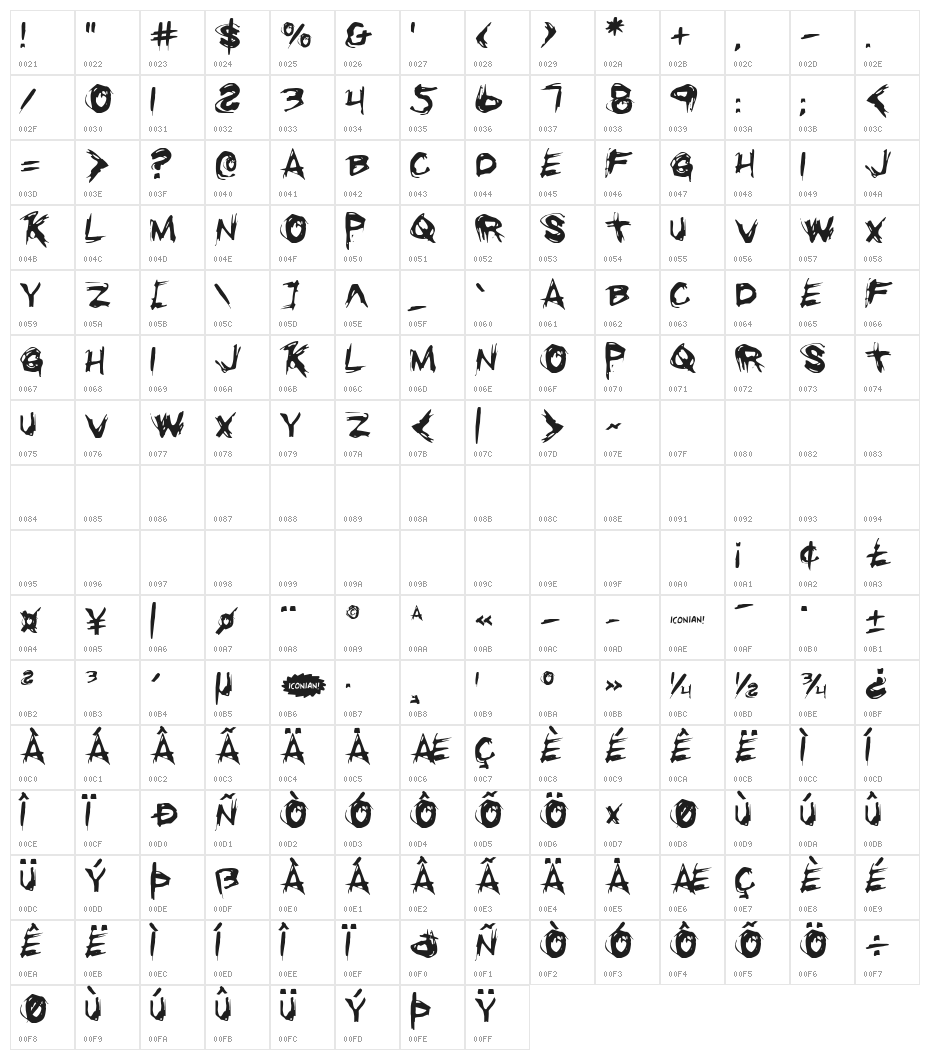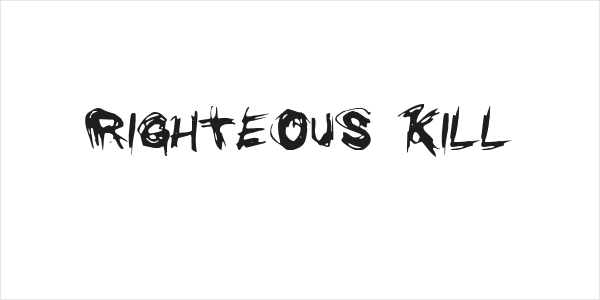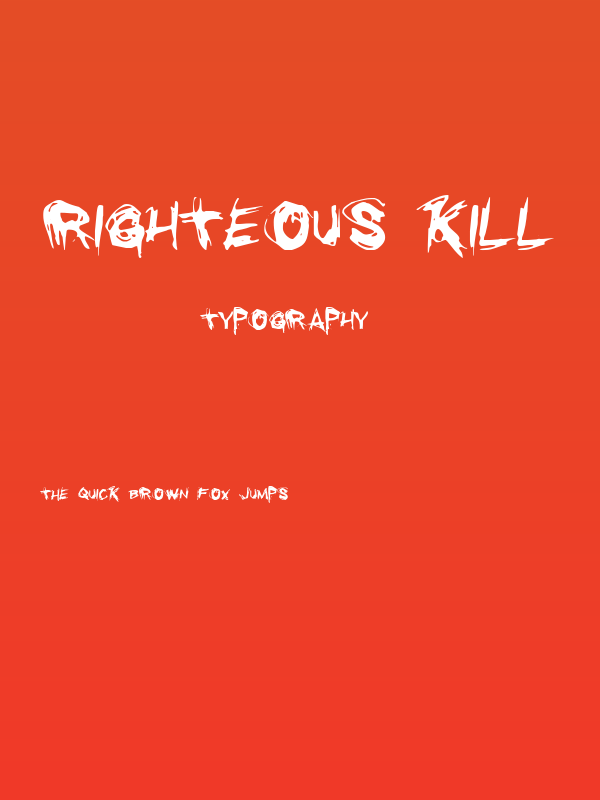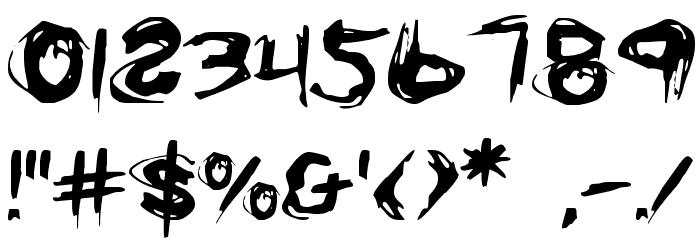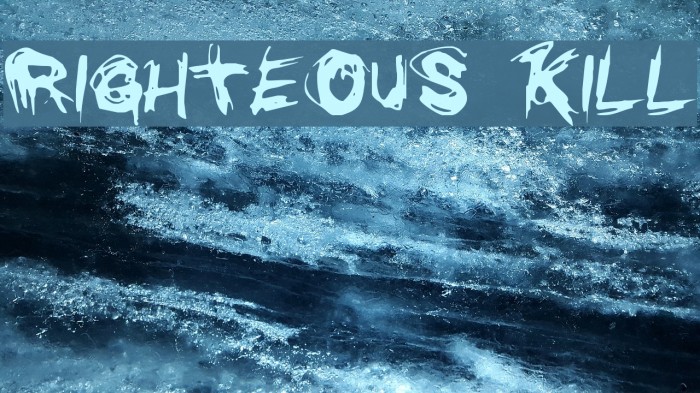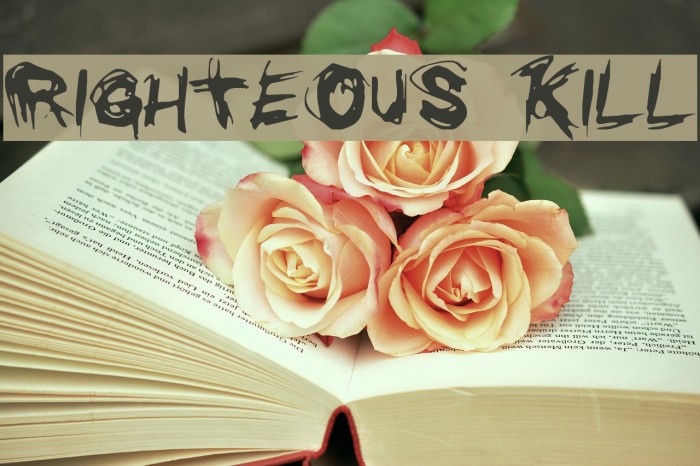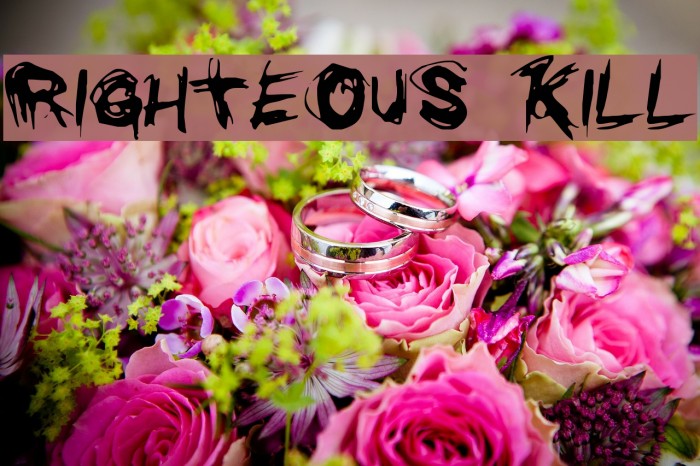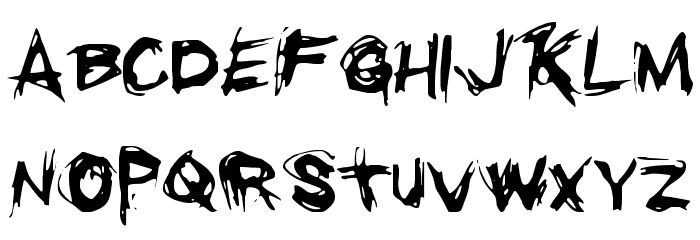
Righteous Kill Font
Righteous Kill Description
This font features a bold and aggressive style with sharp, jagged edges and a distressed appearance. The characters are designed to evoke a sense of chaos and intensity, making them ideal for projects that require a dramatic and impactful visual presence. The uppercase and lowercase letters maintain a consistent style, with exaggerated strokes and irregular shapes that add to the font's edgy and rebellious character. The numbers and special characters follow the same design principles, ensuring a cohesive look across all text elements.
| Use Case | Logos, Posters, Headlines |
| Proposed Projects | Ideal for horror movie posters, rock band logos, Halloween event flyers, and edgy graphic design projects. |